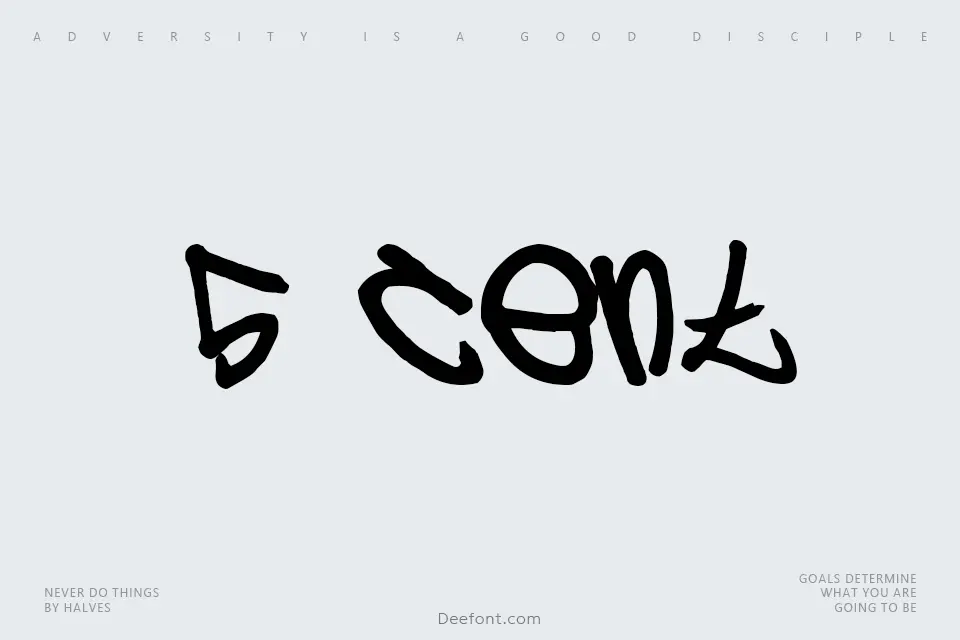
5 Cent Font
5 Cent is a bold, dynamic graffiti-inspired script font designed to capture urban street-art aesthetics. Featuring angular letterforms with rough, uneven strokes and irregular edges, this typeface conveys spontaneity and raw energy. Perfect for branding, packaging, editorial layouts, and event posters, 5 Cent excels at commanding attention with its rebellious, edgy style. The handwritten feel and thick stroke variations make it ideal for projects seeking a gritty, creative spirit.